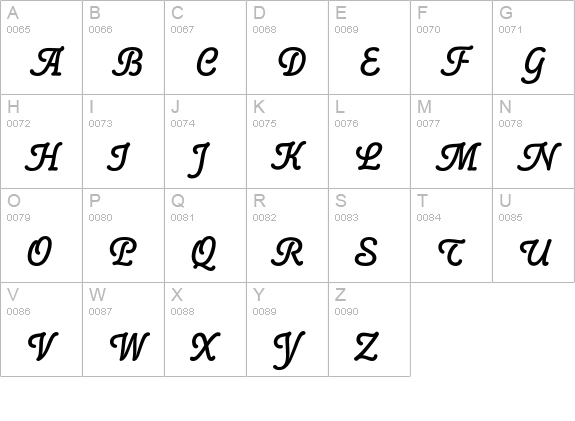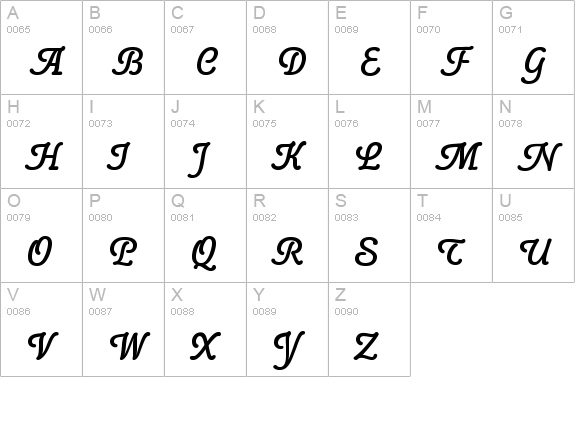
Poppl College Two BQ Medium is a balanced, medium-weight variant in the Poppl typeface family \xE2\x80\x94 well suited to sub-headlines, navigation, and balanced editorial work.
Poppl College Two BQ Medium font is a versatile and modern typeface that strikes the perfect balance between professionalism and creativity. With its clean lines and bold letterforms, this font is ideal for a wide range of design projects, from branding to editorial design. What sets Poppl College Two BQ Medium font apart is its ability to convey a sense of sophistication while still being approachable and friendly. The medium weight of the font makes it easy to read at any size, making it perfect for both print and digital applications. Best of all, Poppl College Two BQ Medium font is available for free download at FontsMarket.com. Whether you're a seasoned designer looking to refresh your font library or a student working on a project, this font is a must-have addition to your collection. Don't miss out on the opportunity to elevate your designs with this stylish and versatile typeface.